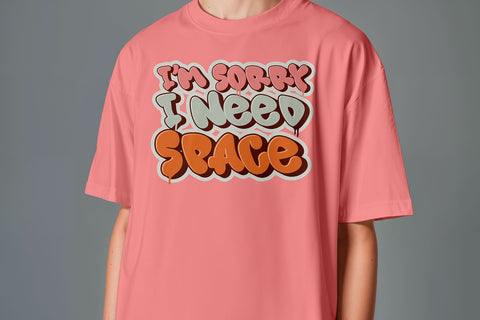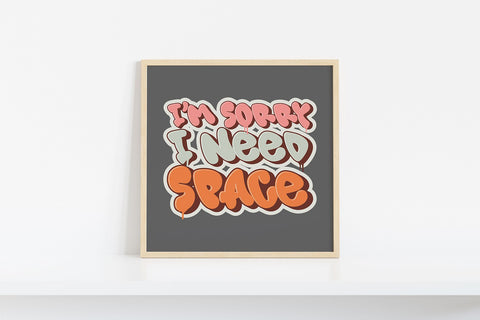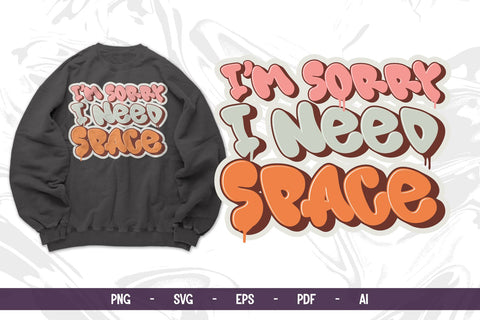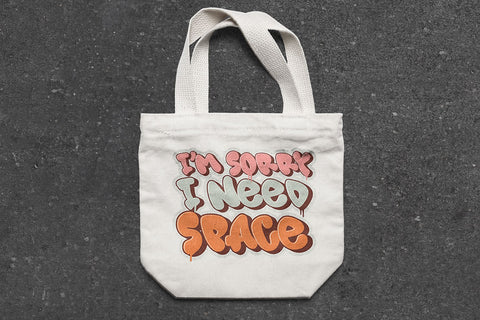
I'm Sorry I Need Space SVG | Bubble Graffiti Quote Design | Cute Drip Font for Shirt, Hoodie, and Tote Bag
Add some space (and sass) to your next craft project with this "I'm Sorry I Need Space" graffiti-style SVG design! Perfect for sublimation or vinyl projects, this bold bubble letter quote with drip accents brings a fun and expressive vibe to hoodies, t-shirts, sweatshirts, tote bags, and more.
This file is ideal for DIY crafters, small shop owners, and print-on-demand designers who love urban and streetwear-inspired lettering with a cute twist. Whether you’re making a sarcastic hoodie or a fun tote for space-lovers, this layered vector is print-ready and easy to cut!